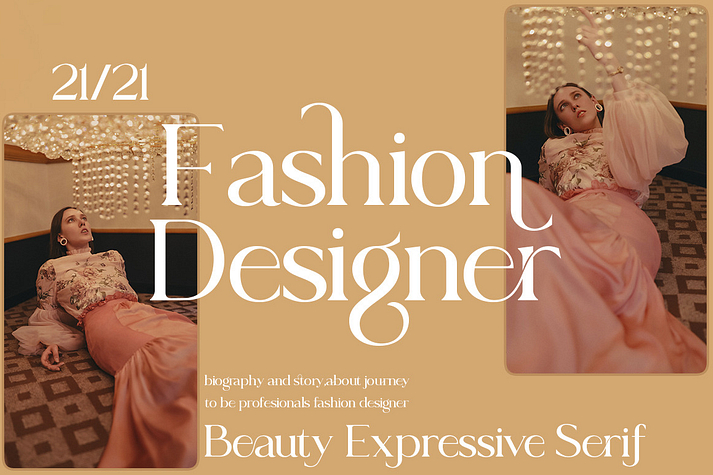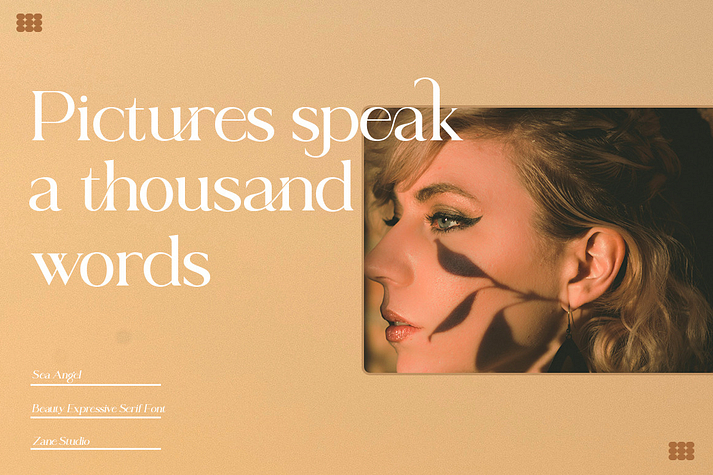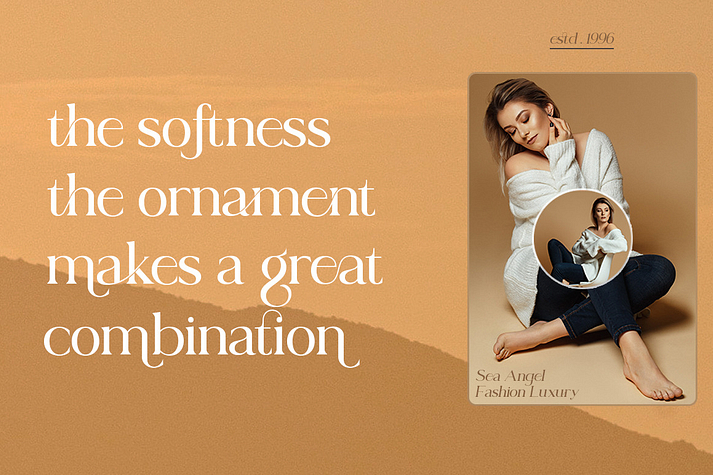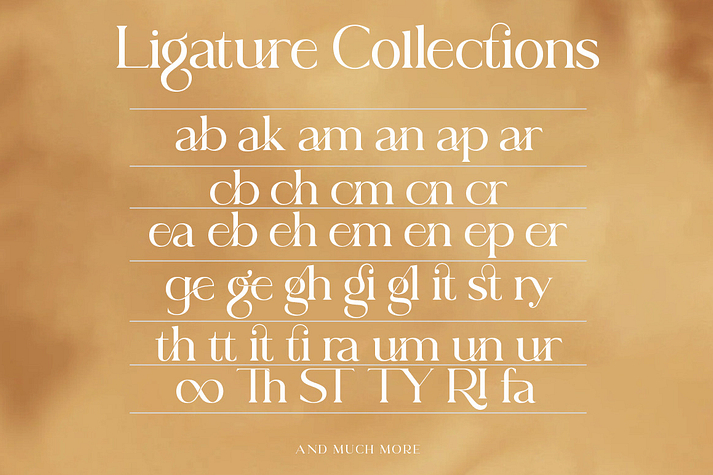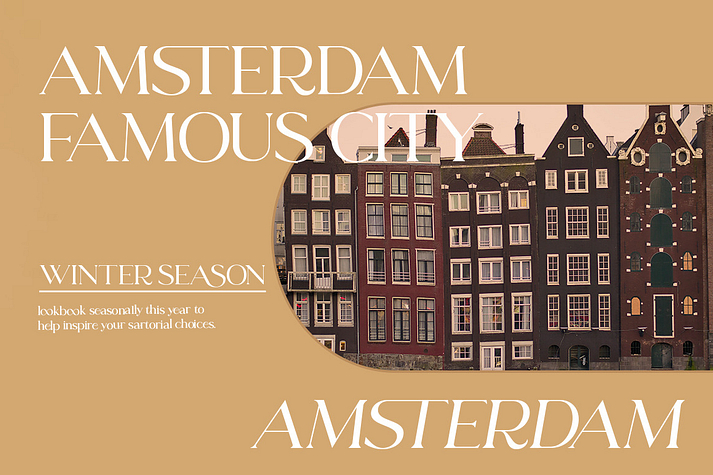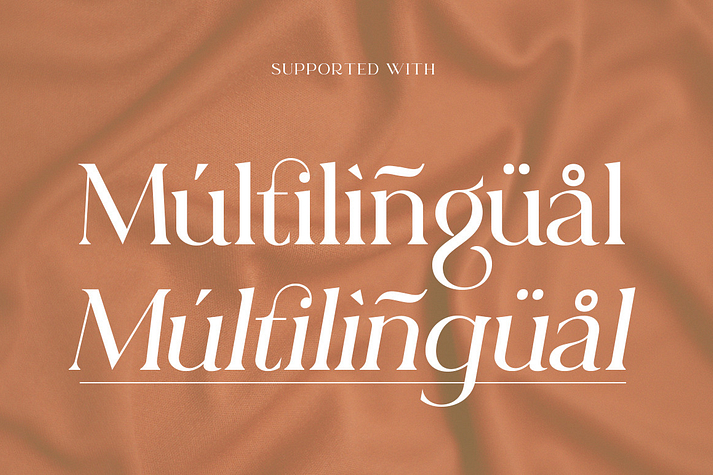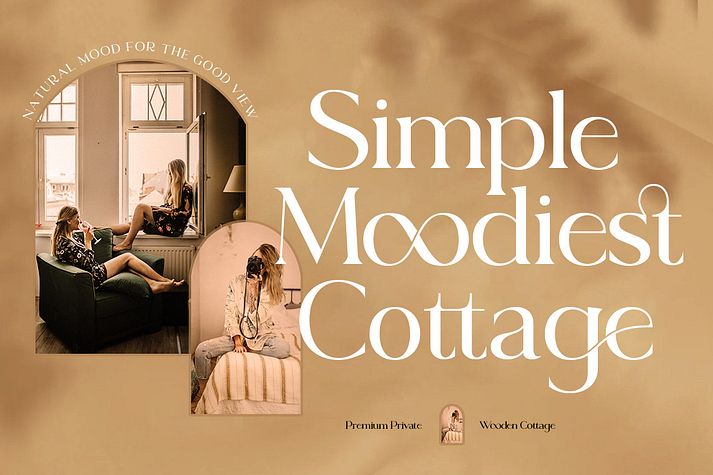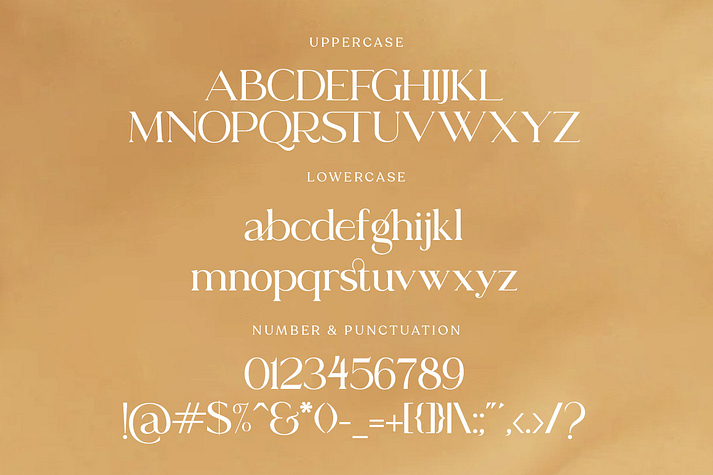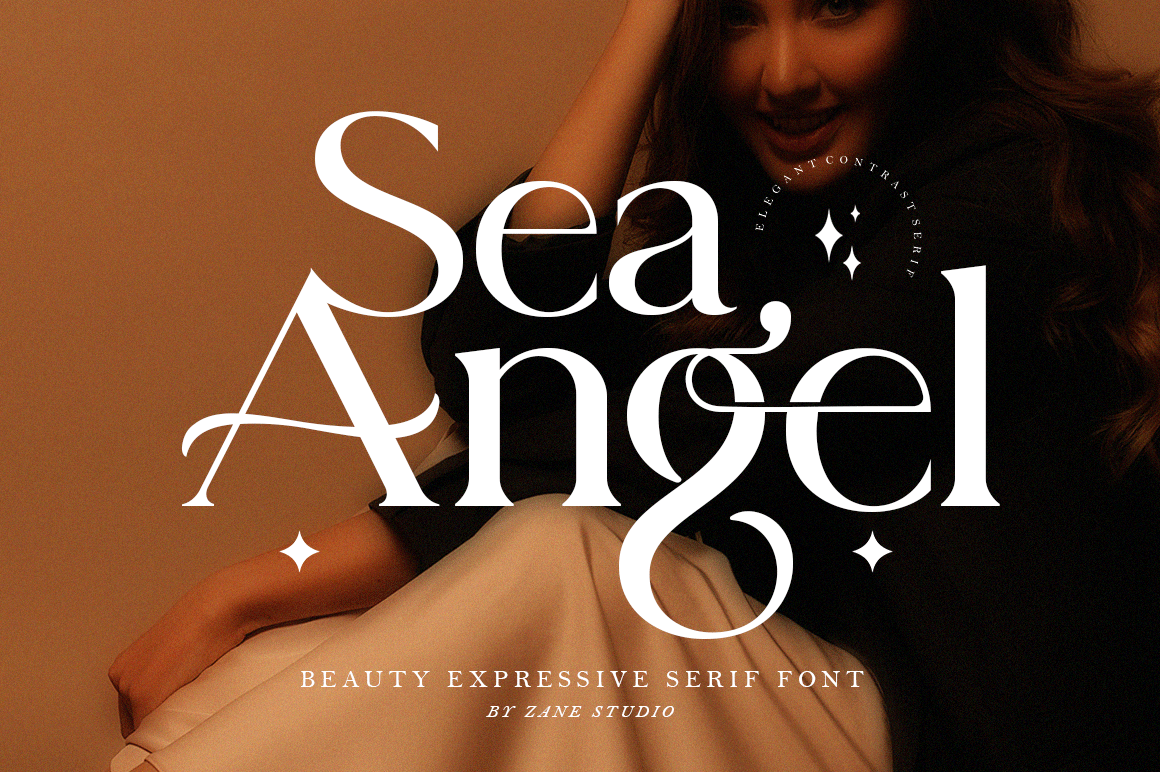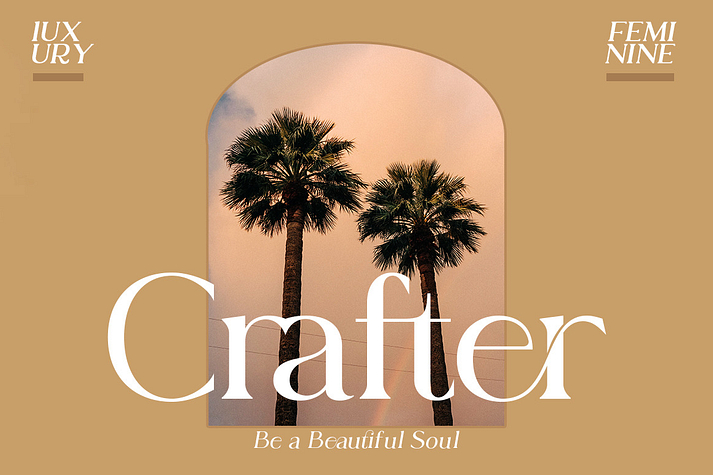
Sea Angel
Sea Angel is a serif font family. This typeface has two styles and was published by Zane Studio.
Sea Angel is a unique and very elegant font for brand and logo designs.
Based on our experience as graphic designers working in many companies, we are often asked to design a logo with a unique style but with an elegant shape. So, we tried to brainstorm and come up with this font to get ideas out. It is perfect for BRANDING and LOGO DESIGN. You will get a classy, elegant, and of course unique logo with this font.
Sea Angel also includes the full set:
uppercase and lowercase multilingual symbol number punctuation What will you get?